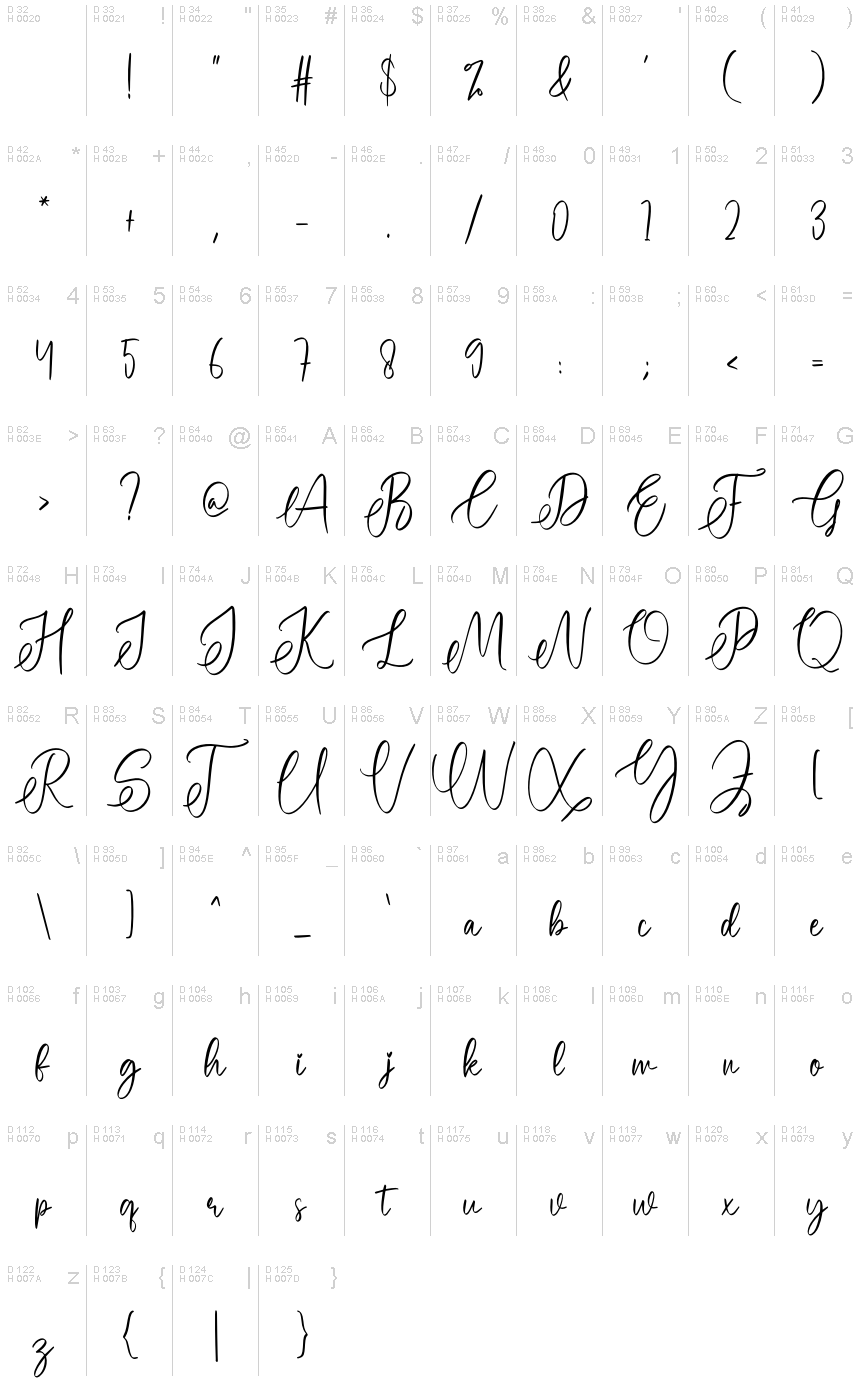
Coffee Sunday
Coffee Sunday font by Scratchones is a blend of timelessness and versatility in this free font combining elegance and simplicity. Its cursive flowing letters are neat, modern, inspired by calligraphy with moderate contrast. An inviting casual feel prevails making all characters stylish and elegant.
Coffee Sunday has all the potential to be used in every project you set your mind to; from packaging labels, branding signatures, ads headings, to wedding invitations. Make use of its style of ultimate beauty in your digital projects!